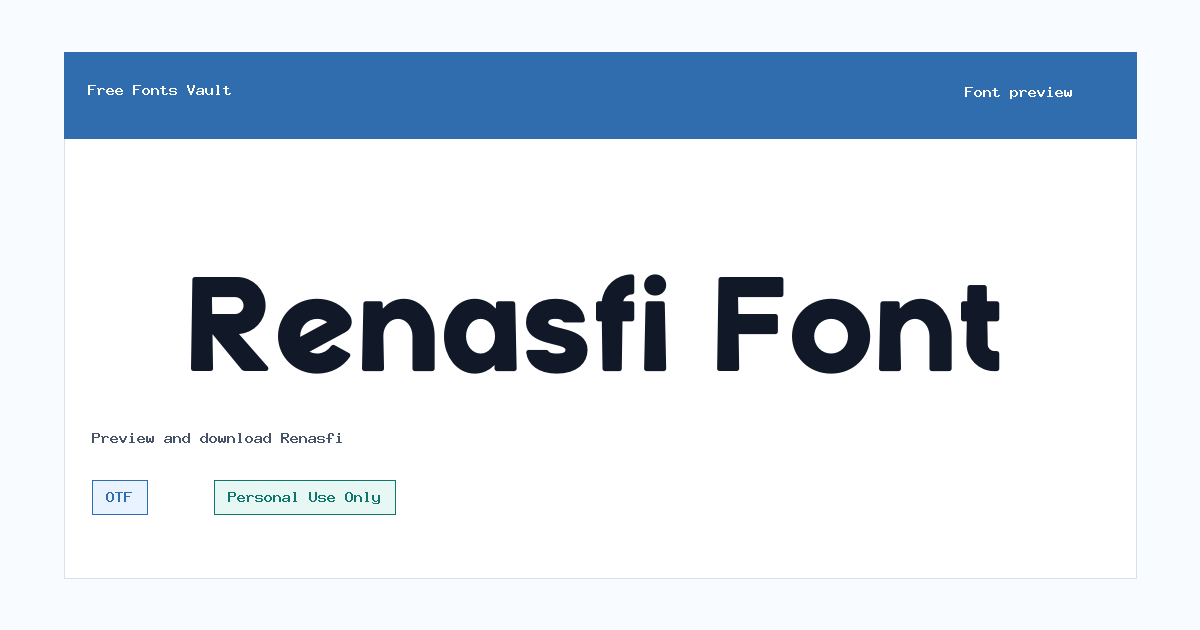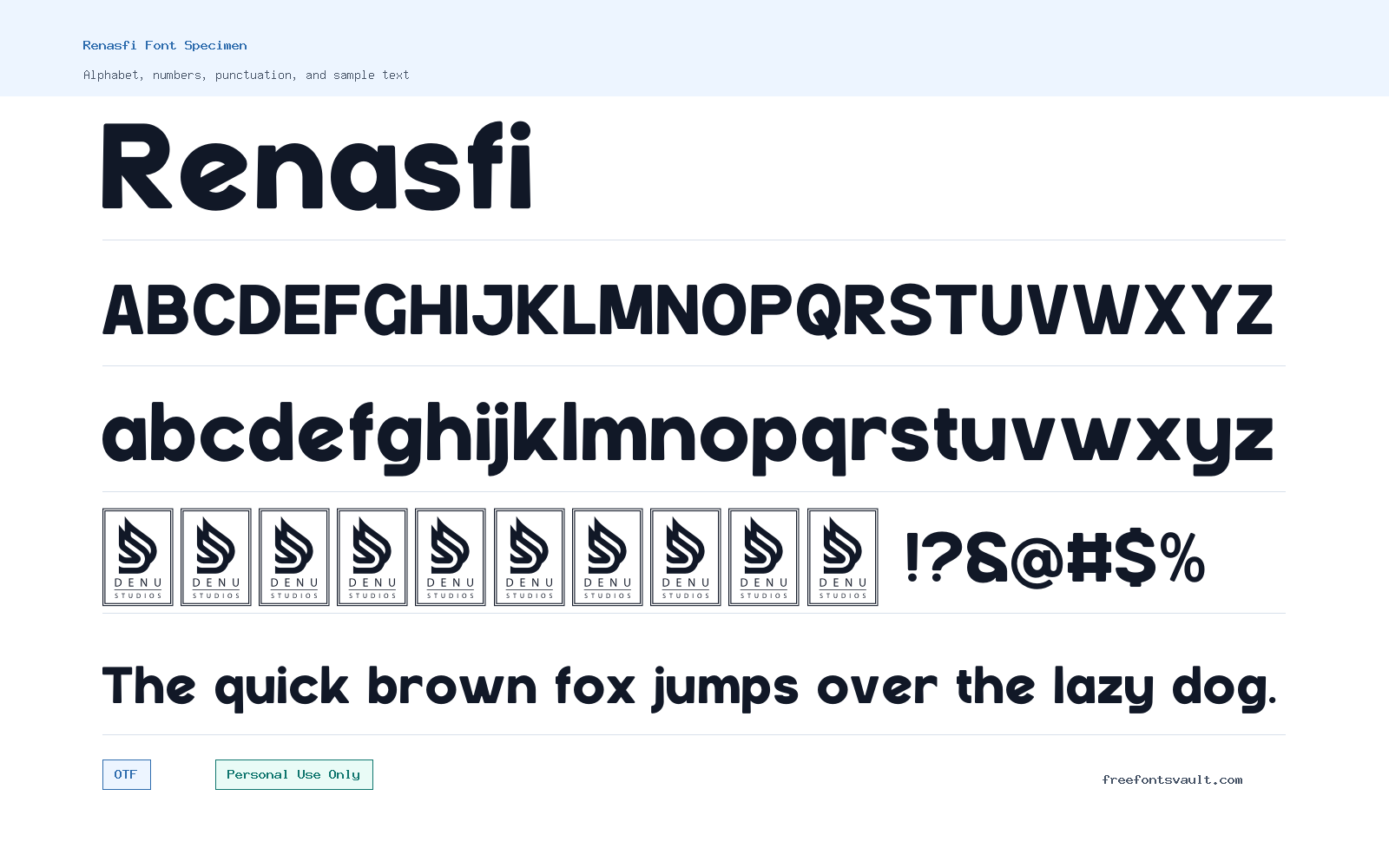
Renasfi
- Designer Dede Nugraha
Renasfi font.
Renasfi is a sans serif font family with demo OTF files for a regular style and an outline style. Its clean structure makes it easy to test for display text, headings, and short creative layouts before downloading.
About Renasfi Font
Renasfi is best approached as a display-friendly sans serif rather than a long-reading body font. The regular style gives you a solid, straightforward letter shape for titles, names, and short blocks of text. The outline style adds a more decorative option, useful when you want the text to feel lighter or more graphic without changing the overall family look. Because both files are demo OTF fonts, they are most useful for previewing the typeface in real layout situations before deciding whether it fits your project.
Try Renasfi in the preview tool with the exact words you plan to use. Short phrases, logo-style mockups, poster headlines, social graphics, labels, and website hero text are better tests than a full paragraph. If you use the outline style, check it at the final size because thin interior spaces can lose clarity when the text is too small. For pairing, keep the second font simple: a neutral sans serif or readable serif will let Renasfi handle the visual focus without making the design feel crowded.
- Sans serif demo font with a regular OTF style for clean display text.
- Matching outline OTF demo style for decorative headings and graphic layouts.
- Works best in short text where shape and spacing can be judged clearly.
- Poster titles, cover text, and display headings
- Social media graphics and quote images
- Logo mockups, nameplates, and branding drafts
- Labels, packaging concepts, and short website hero text
- Outline-style typography experiments
Who designed Renasfi?
Renasfi is credited to Dede Nugraha.
What is the outline style best for?
The outline style is best for larger display text, such as posters, graphics, title treatments, and mockups where the letter shape can stay clear.
Can I use Renasfi for paragraph text?
You can test it, but it is better suited to short text and headings. For long reading, pair it with a simpler text font.